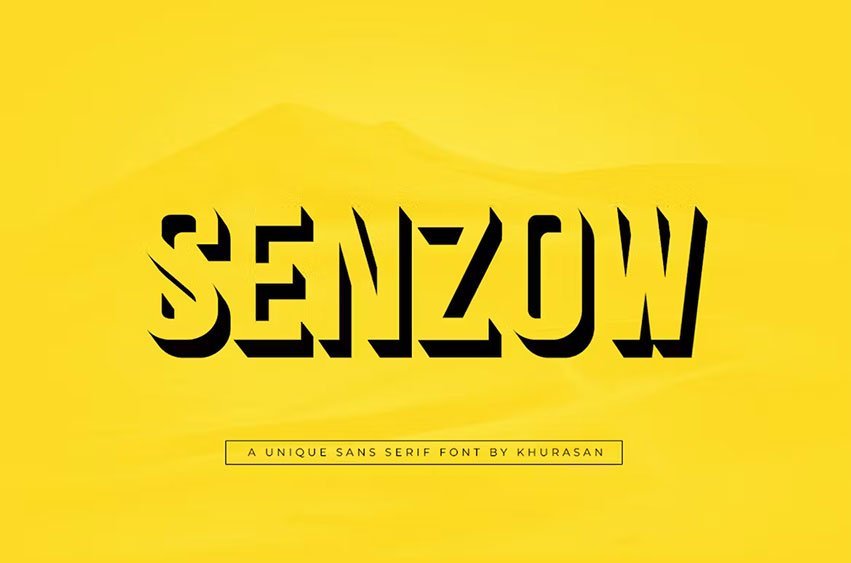
Senzow Font
Senzow Font is a clean and unique sans-serif font. The smooth and clean execution makes this font look sleek and elegant which is perfect for futuristic branding designs. It can easily be matched to an incredibly large set of projects, so add it to your creative ideas and notice how it makes them stand out!